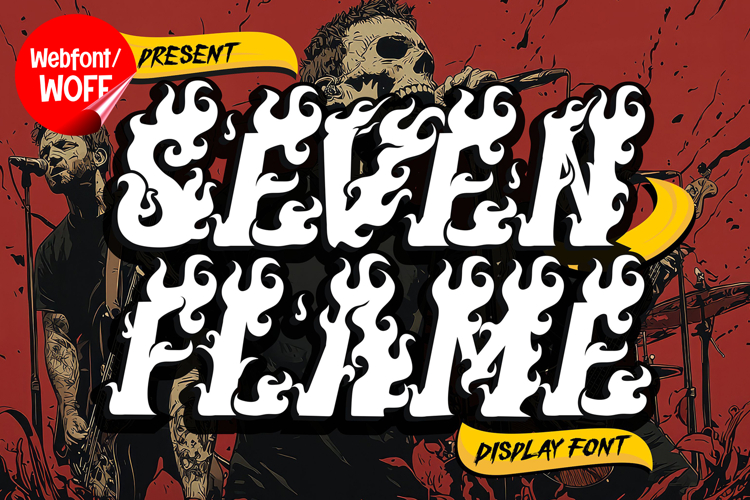
Seven Flames | Fire Display Webfont for Bold Hot Design
Seven Flames is a fire display webfont designed to bring heat, intensity, and dramatic energy into modern website design. Inspired by blazing fire shapes and burning visual effects, this font features dynamic letterforms with flame-like details that create a bold and powerful typographic presence. It is an excellent choice for projects that aim to deliver high-impact visuals with a strong and energetic atmosphere.
Seven Flames includes a complete set of uppercase characters designed with fire-inspired forms. The letterforms feature sharp edges and flowing flame details that give a sense of movement and heat. These characteristics make it ideal for headlines, banners, hero sections, and featured content where strong visual impact is essential.
In addition to letters, the font includes numbers and punctuation, allowing flexible usage across various parts of a website. It works well for promotional content, event announcements, branding elements, gaming interfaces, and creative campaigns. Each character maintains a consistent fiery style, ensuring a cohesive and unified visual identity throughout the layout.
With multilingual support, Seven Flames includes a wide range of accented characters, making it suitable for international websites and global audiences. This ensures content can be displayed clearly across different languages while maintaining the intense and dramatic aesthetic.
The fire display style of Seven Flames makes it especially suitable for gaming websites, action-themed content, sports branding, entertainment platforms, and bold digital campaigns. Its blazing and energetic design adds intensity and excitement, helping websites stand out in competitive digital environments. The flame details enhance the sense of motion and power.
Despite its dramatic and decorative appearance, Seven Flames is designed with readability in mind. The spacing and proportions are carefully balanced to ensure clarity, particularly in display sizes. This allows designers to use the font effectively for impactful headings and short content without sacrificing usability.
Seven Flames is a webfont that combines fire-inspired aesthetics with modern digital performance. Its dynamic shapes, blazing details, and bold character create a distinctive typographic presence that enhances website design. For projects that require a hot, energetic, and visually engaging display font, Seven Flames offers a powerful and striking solution.